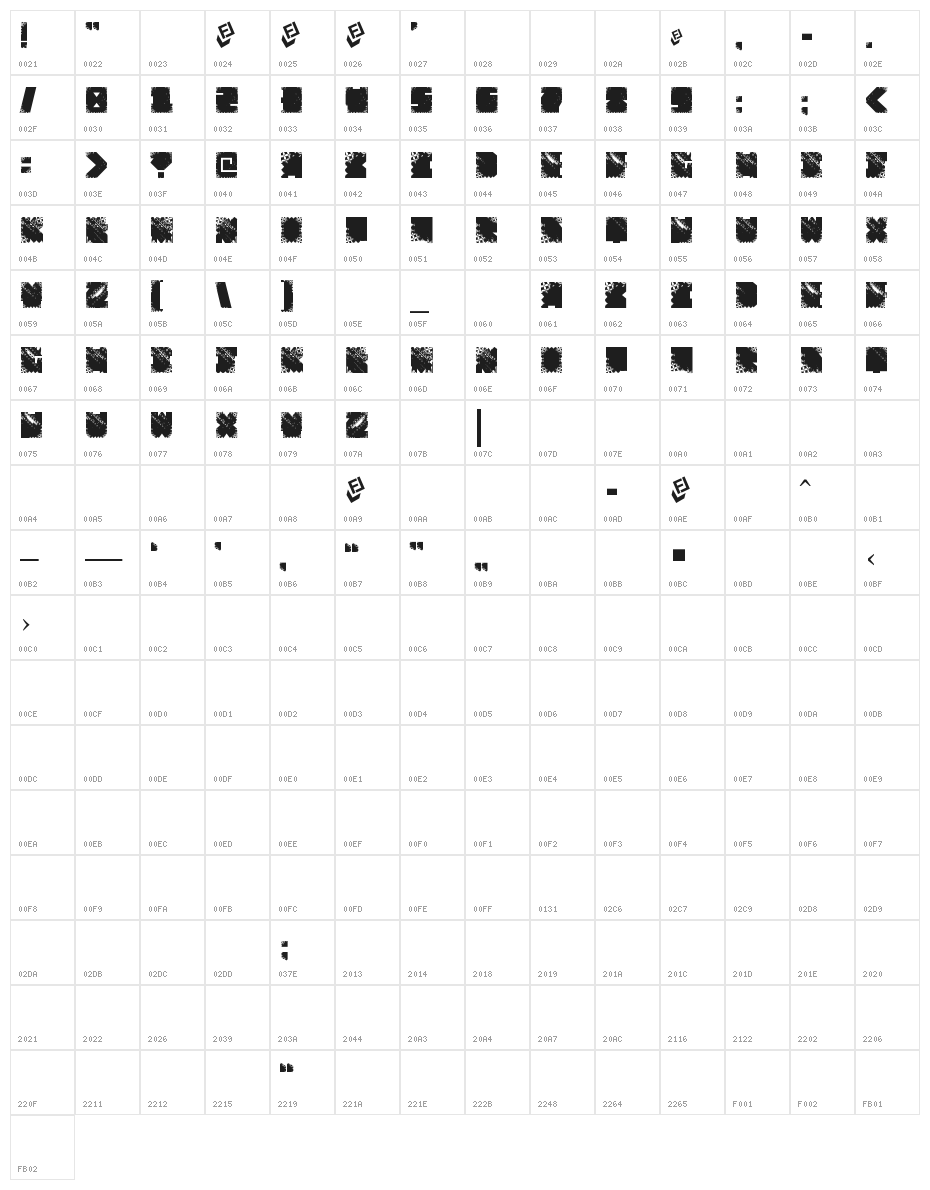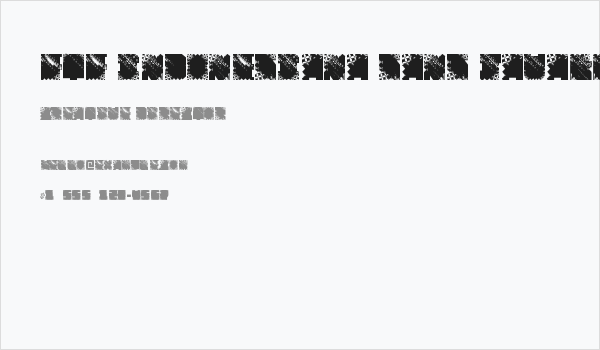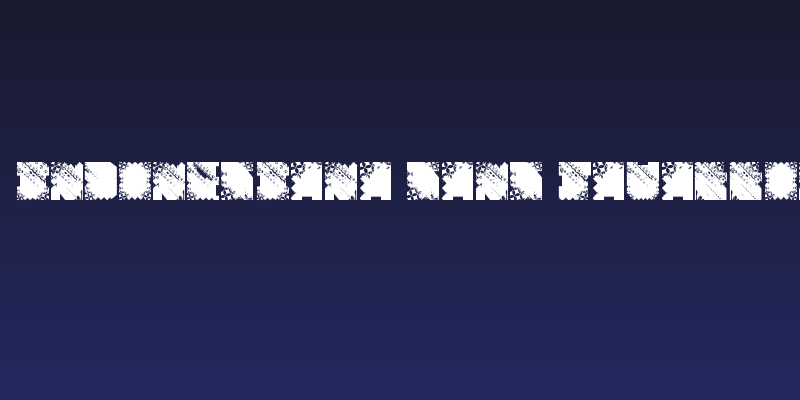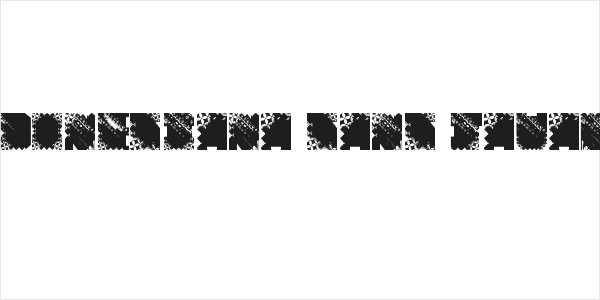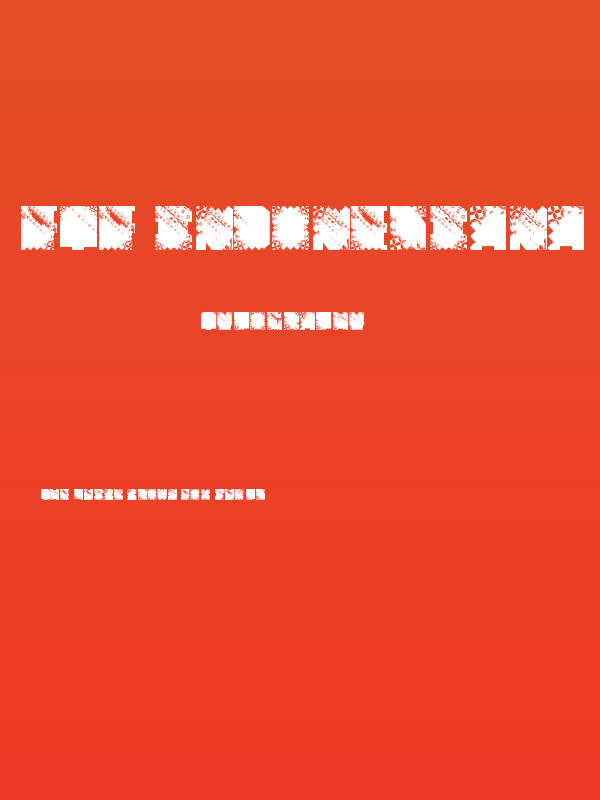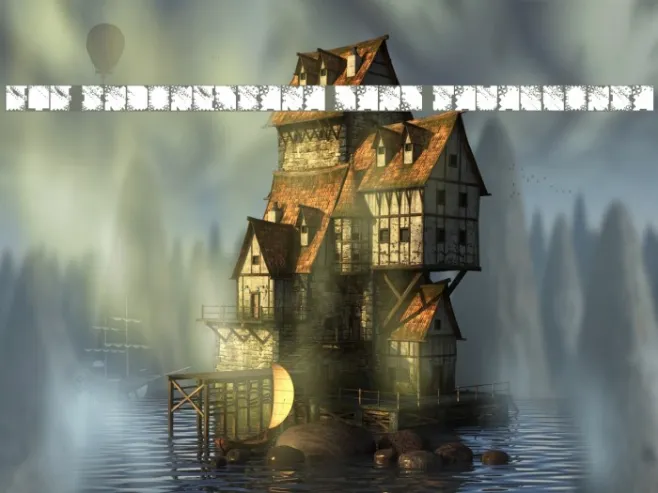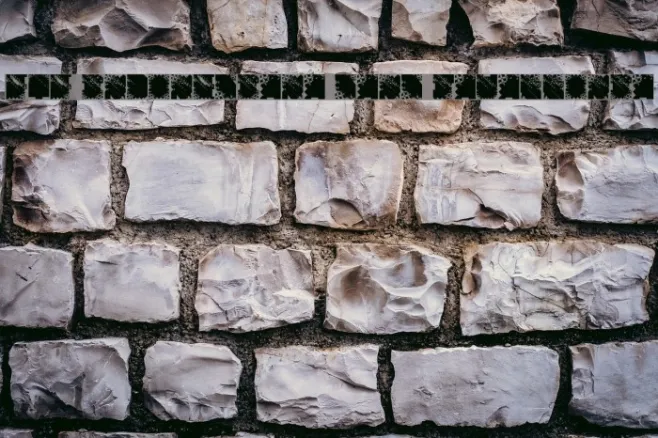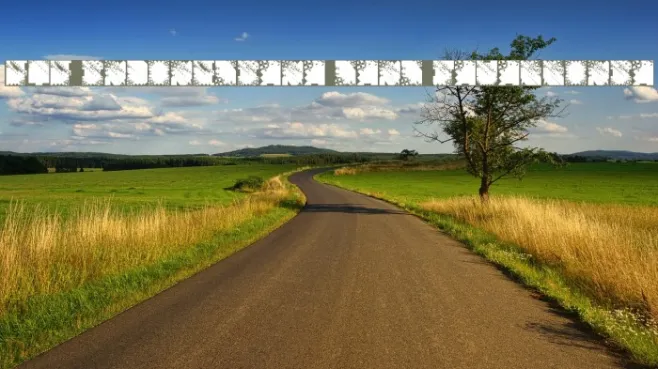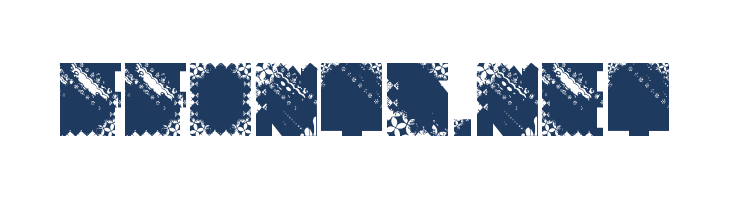
FTF Indonesiana Sans Javallonia Font
FTF Indonesiana Sans Javallonia Description
This font features a bold and striking design with a distressed texture that gives it a unique, rugged appearance. The characters are blocky and geometric, with sharp angles and a consistent weight throughout. The distressed effect adds an element of depth and texture, making each letter appear as though it has been weathered or eroded over time. This style is particularly eye-catching and can add a dramatic flair to any design project. The font maintains a consistent width across all characters, ensuring a uniform look. Its boldness and distinctive style make it ideal for projects that require a strong visual impact.
| Proposed Projects | Ideal for posters, album covers, branding, and any project needing a bold, impactful look. |